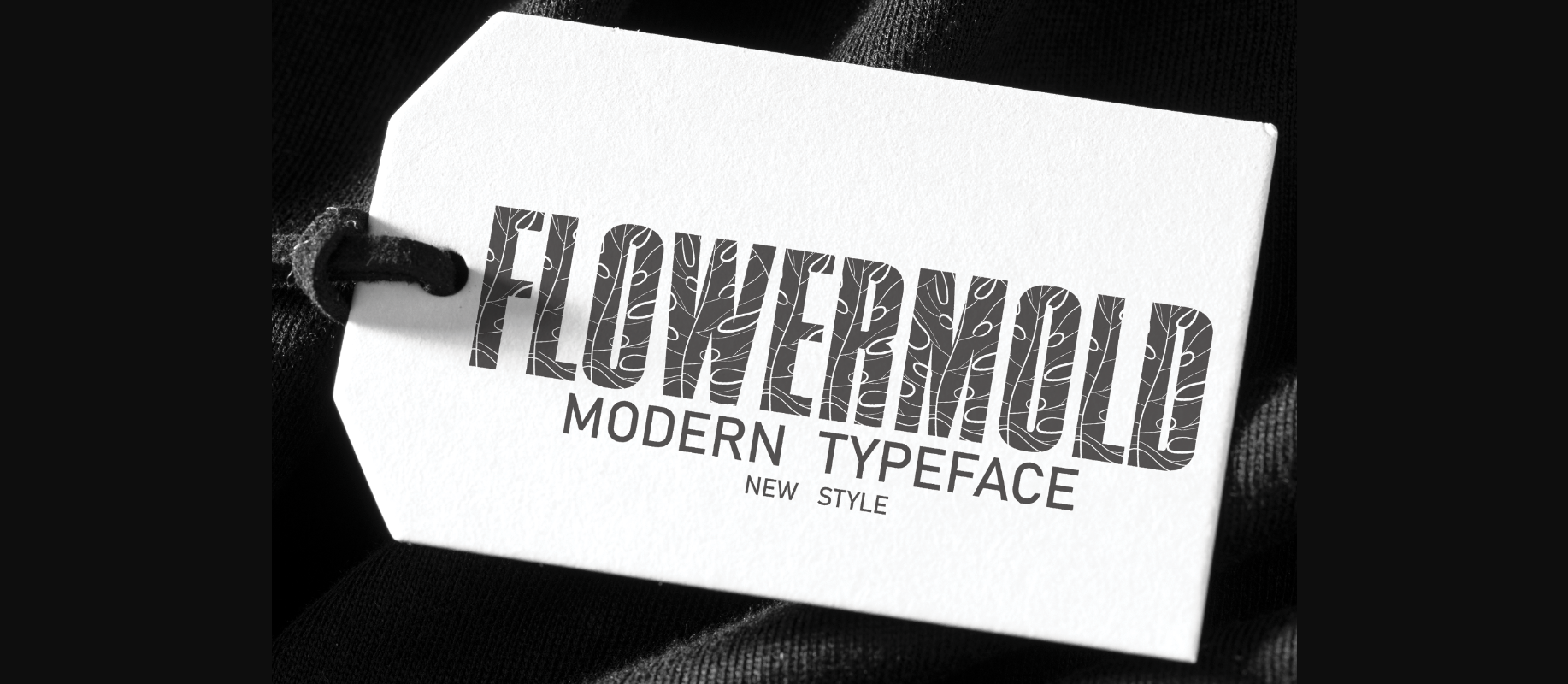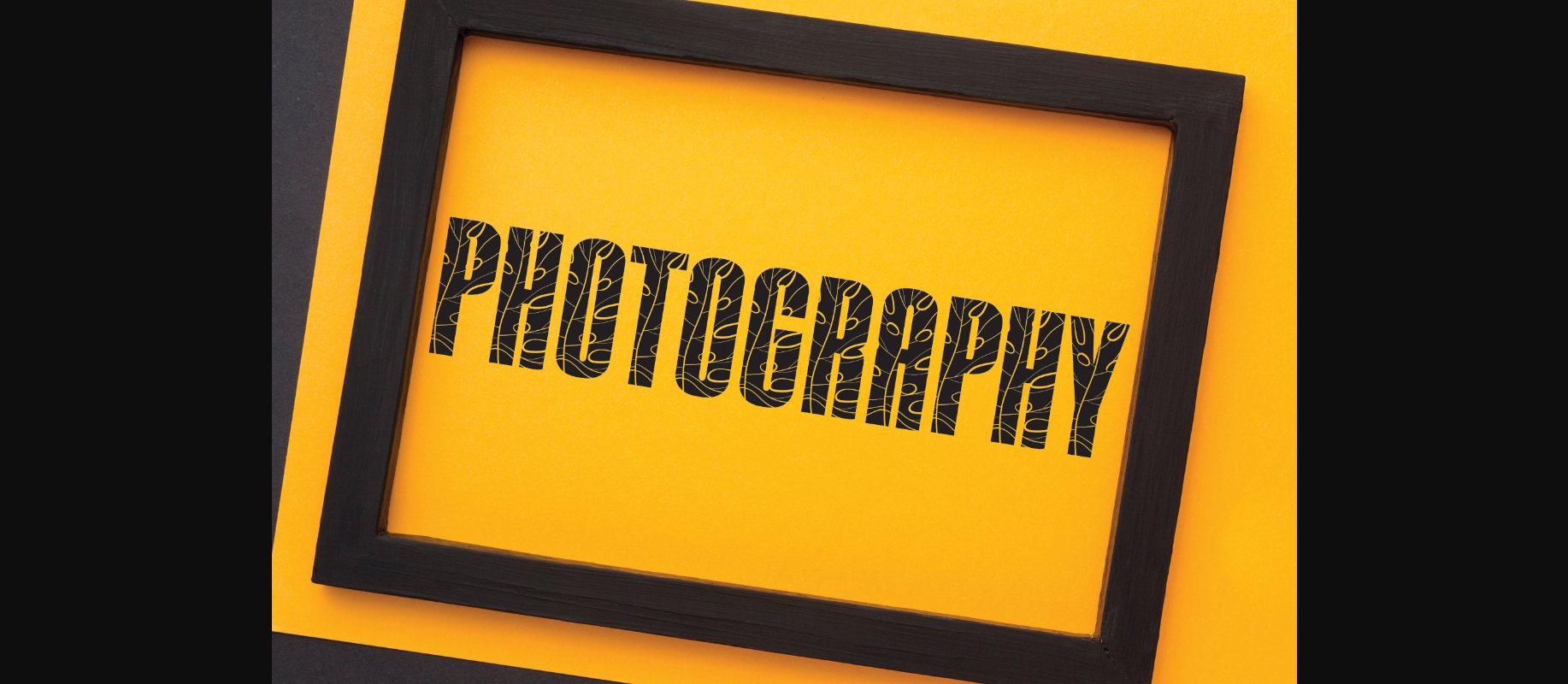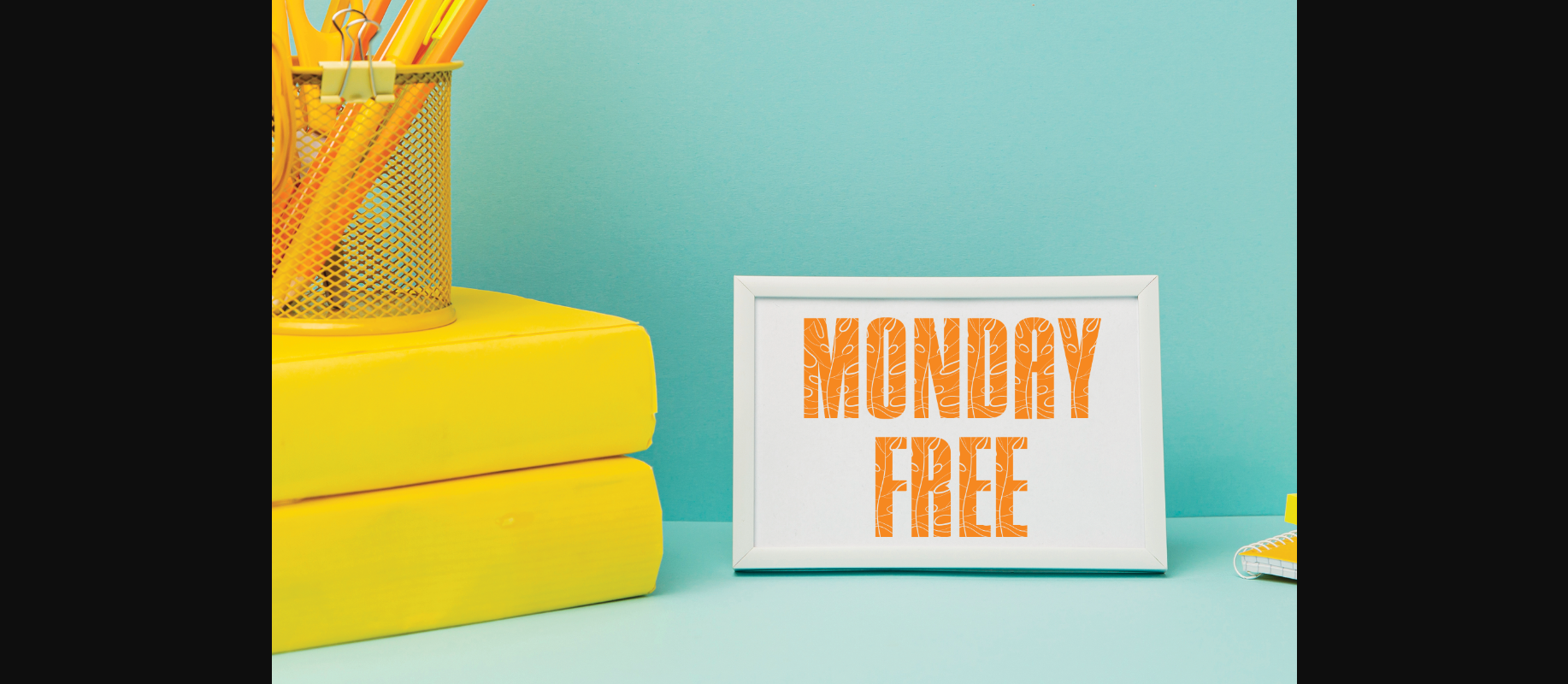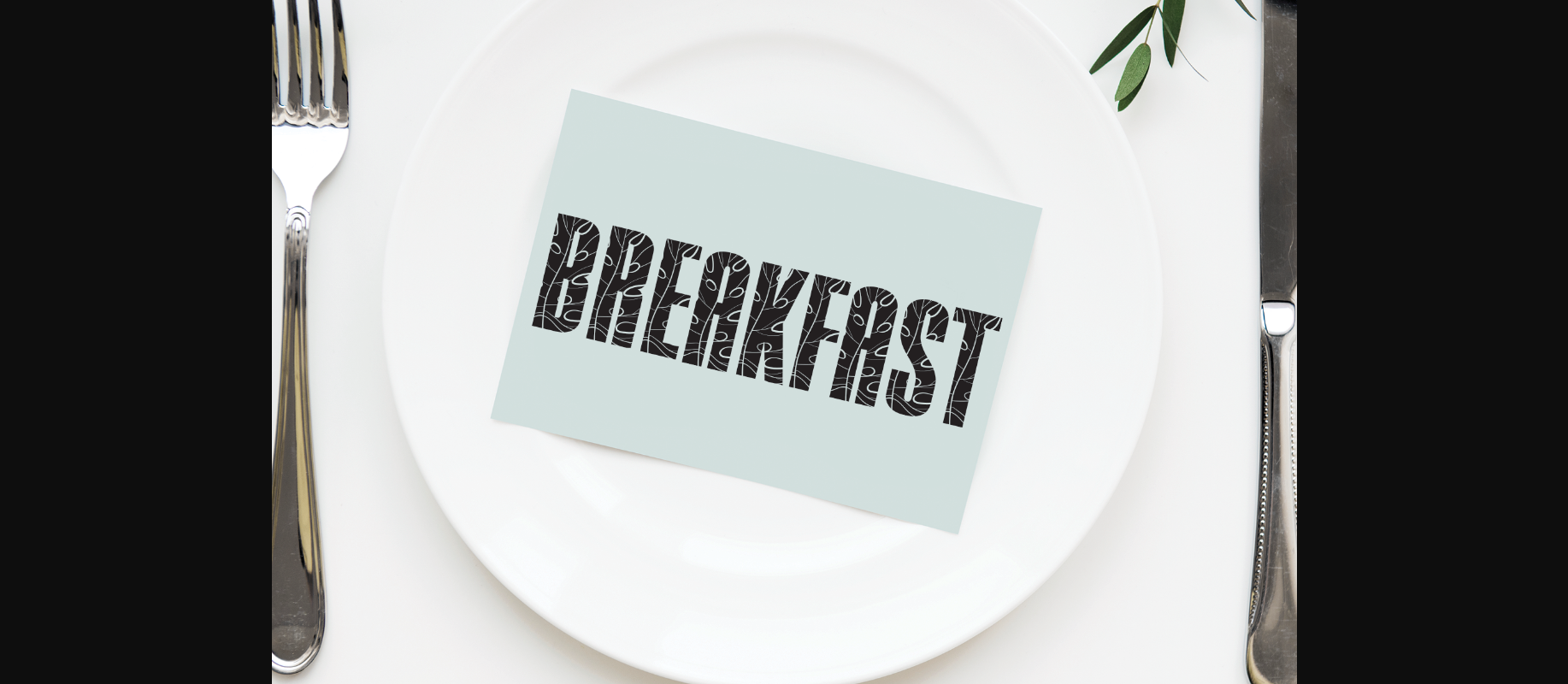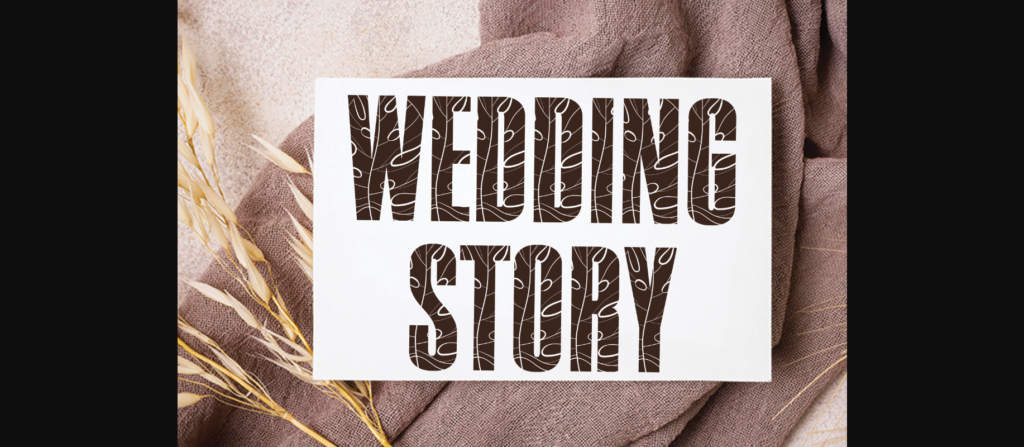
Flower Mold Font
About Flower Mold Font
Flower Mold is a modern typeface that is perfect to use for wall displays, wedding invitations, social media post logos, advertisements, product packaging, product designs, labels, photography, watermarks, invitations, and stationery.